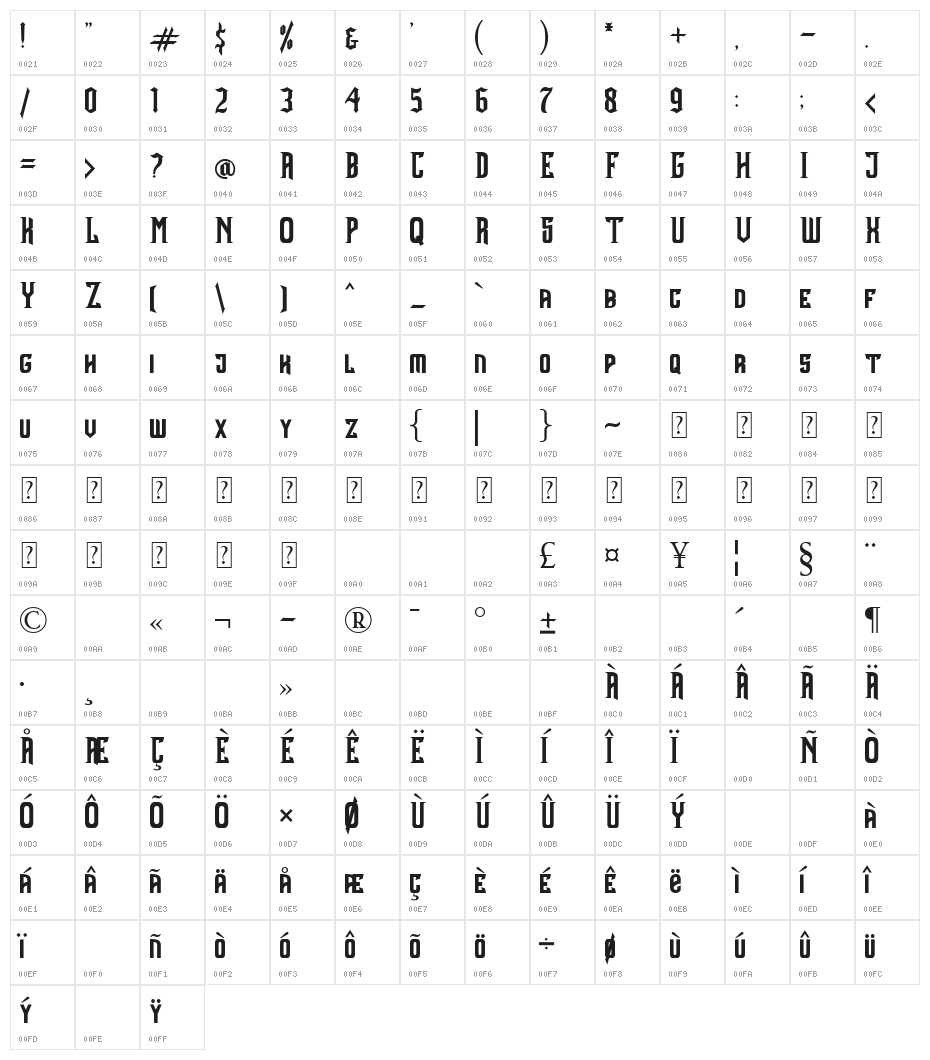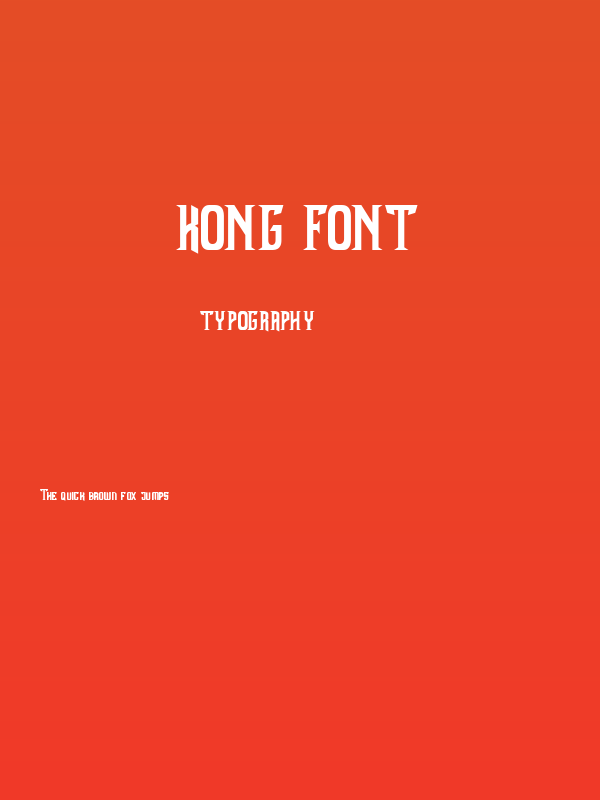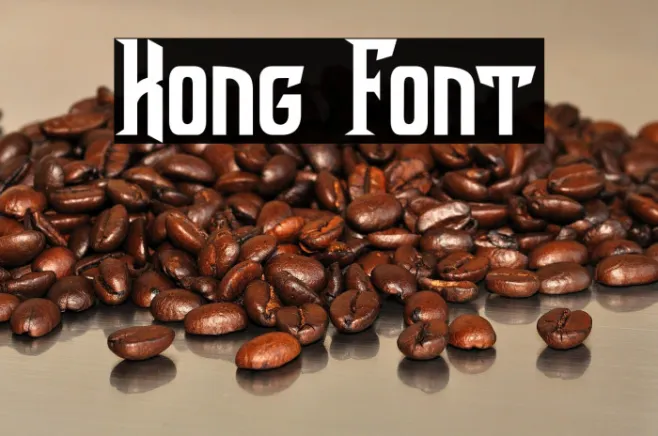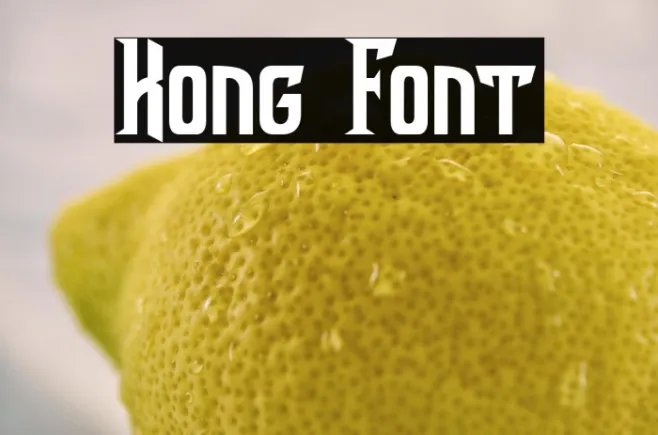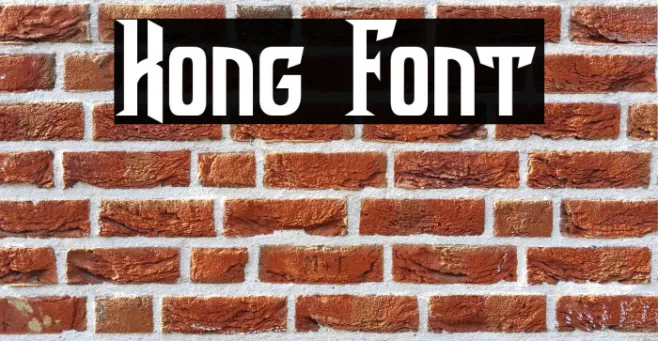
Kong Font Font
Kong Font Description
This font features a bold and striking design with sharp, angular edges and a distinct geometric style. The uppercase letters are tall and commanding, while the lowercase letters maintain a consistent height, creating a cohesive look. The numerals are equally bold, with unique cuts and angles that add to the font's distinctive appearance. Special characters are designed to match the overall aesthetic, making them suitable for a variety of uses. The font's strong presence makes it ideal for attention-grabbing headlines and impactful designs.
| Proposed Projects | Ideal for posters, logos, branding, and any design requiring a bold statement. |